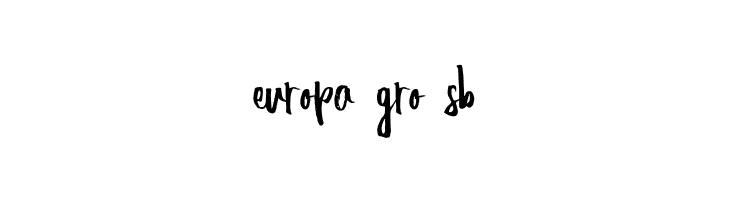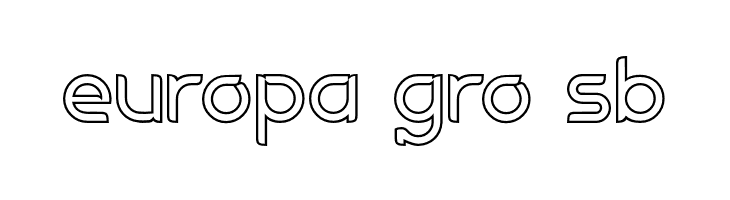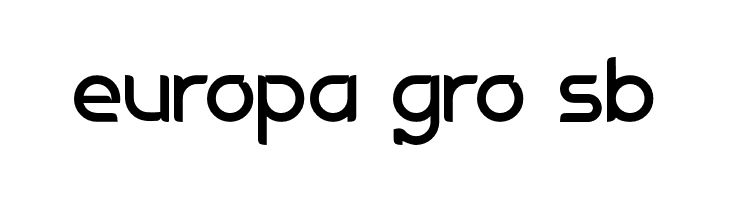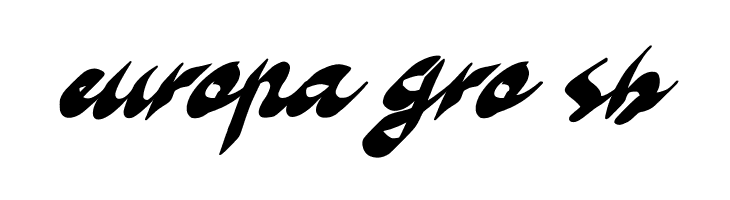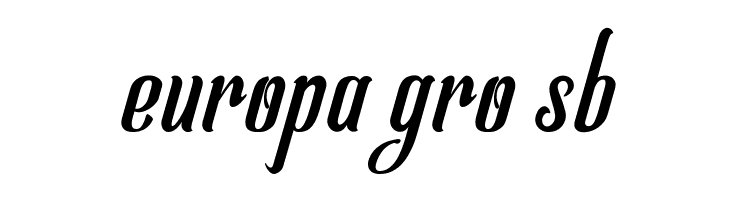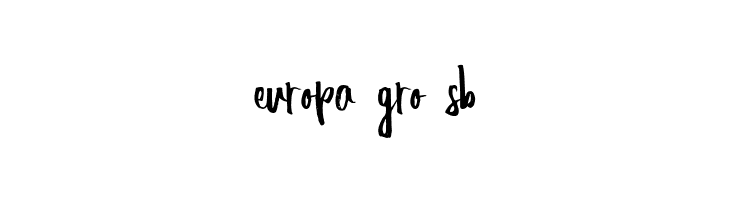
• Allegratta Personal Use Regular
A flowing, cursive font with elegant, sweeping lines and ornate uppercase letters.
• alleha
A decorative font with intricate curls and swirls, perfect for artistic projects.
• alleiyana
A lively and expressive handwritten font with fluid strokes.
• alleiyana
A lively, expressive handwritten font with dynamic strokes and artistic flair.
• Alleluya
A graceful and flowing script font with elegant, cursive strokes.
• Allema
A dynamic and elegant script font with flowing, cursive letters and decorative flourishes.
• Alleman
A bold, dynamic script font with calligraphic influences and sweeping strokes.
• Allen
A casual handwritten font with an organic and personal touch.
• AllenatoreRegular
A modern, geometric sans-serif font with clean lines and a friendly appearance.
• AllenatoreRegularOutline
A modern, geometric outline font with consistent width and structured letterforms.